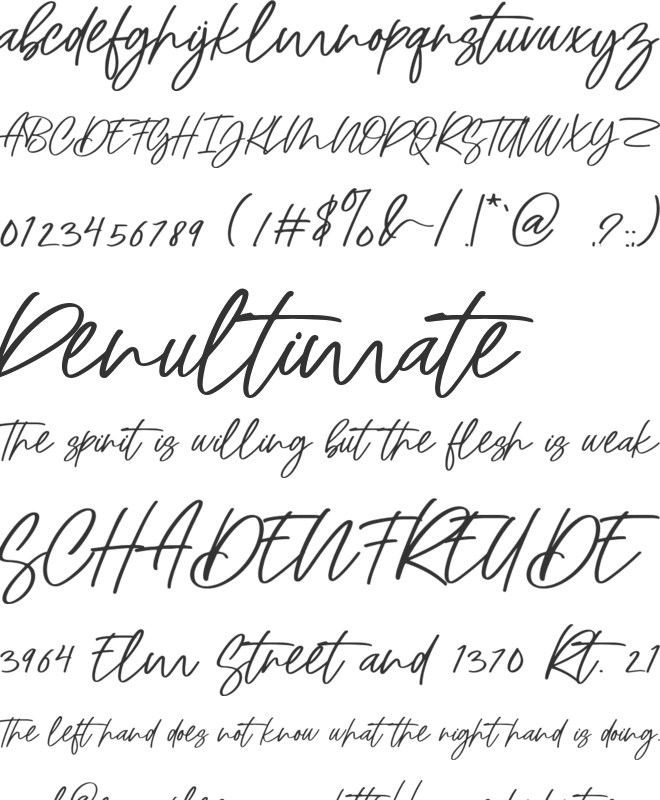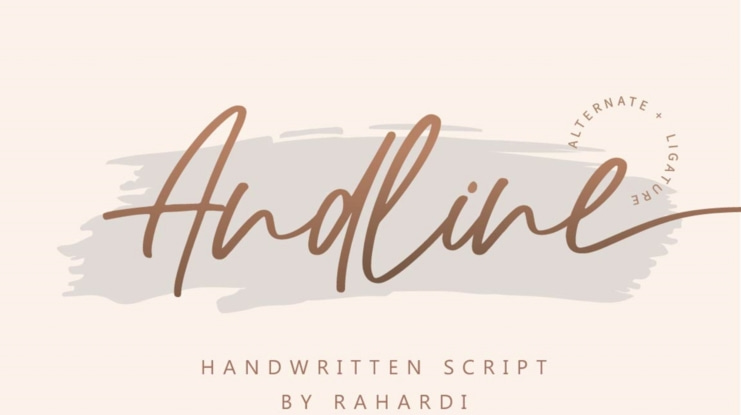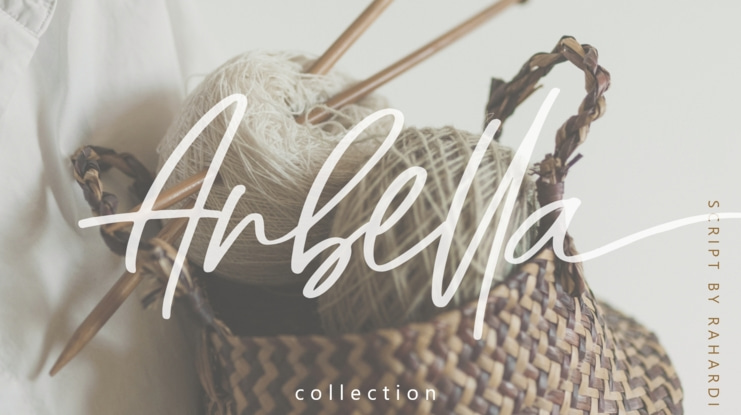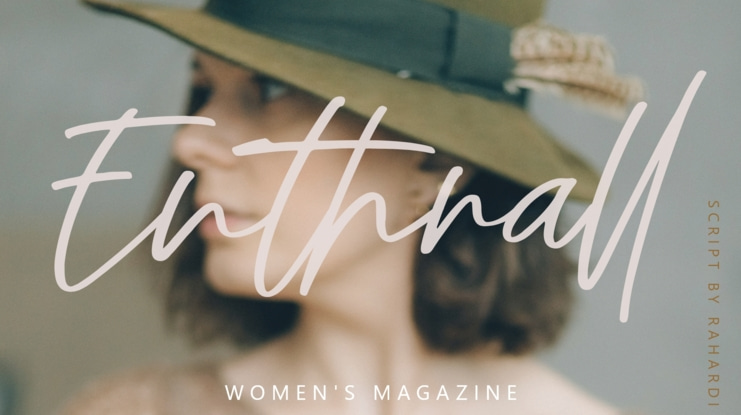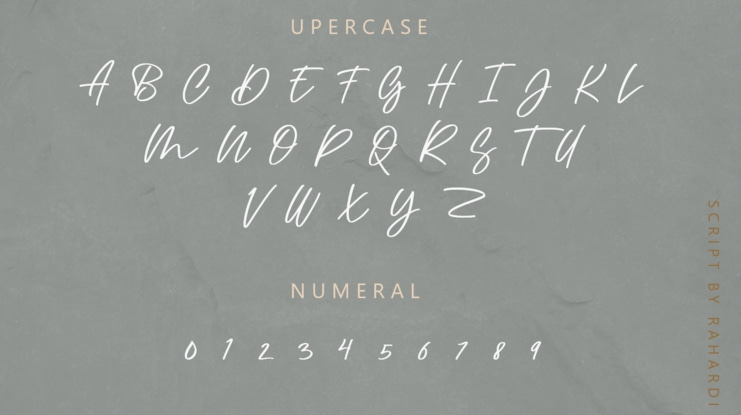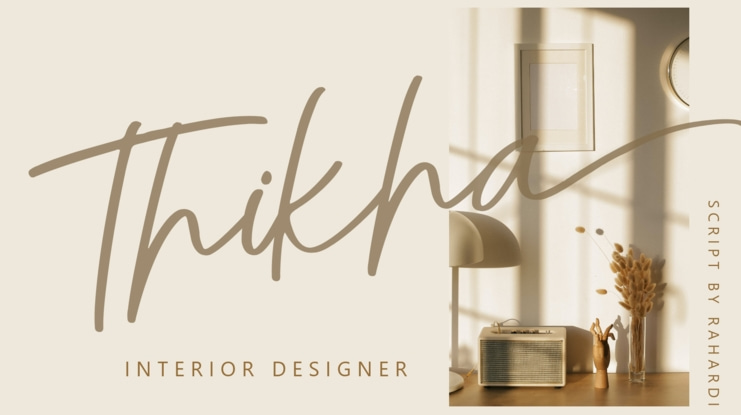
Andline Font
Andline is a beautiful Script signature font. Made for any professional branding project. Each letter has a unique and beautiful touch.
Features: Upercase & Lowercase Numberal & symbol 52 Stylistic set Ligatures